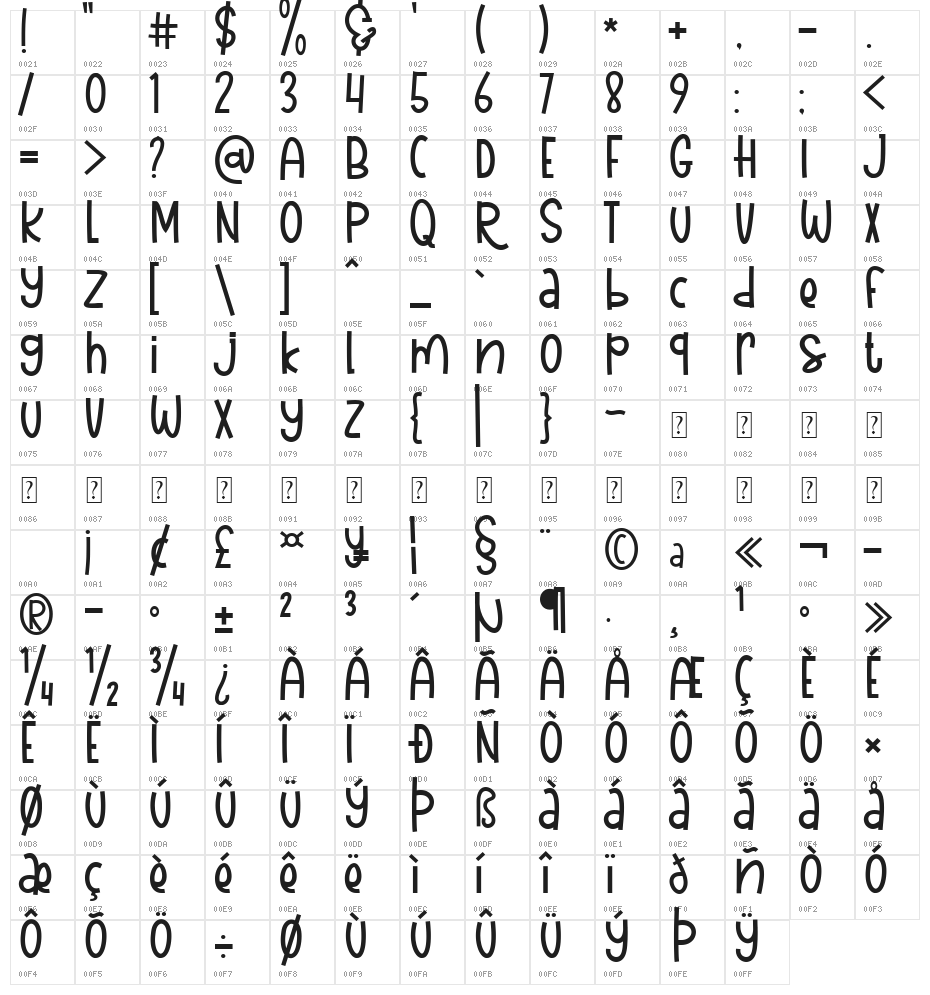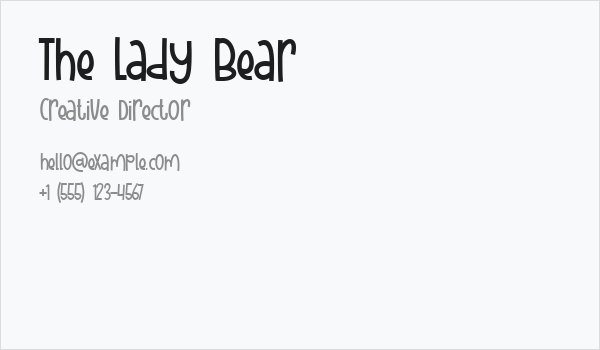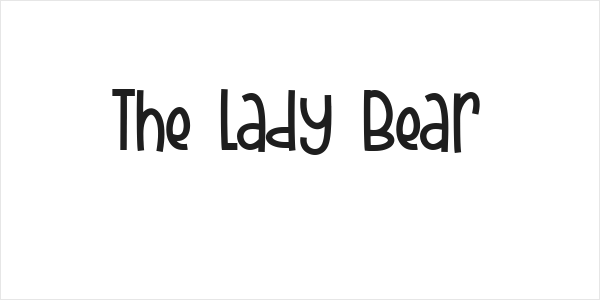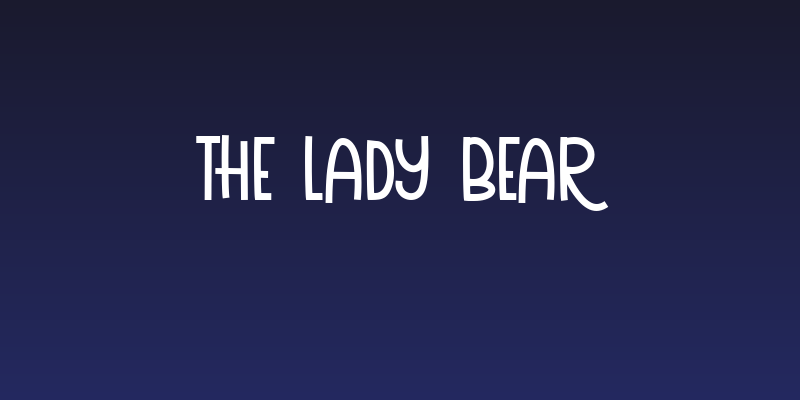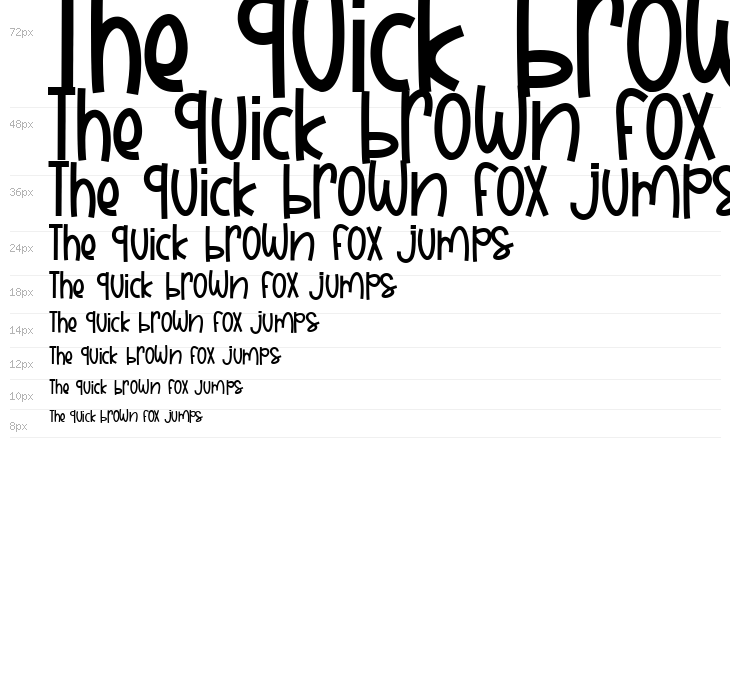
The Lady Bear Font
The Lady Bear Description
This font features a playful and whimsical design with tall, narrow characters that have a hand-drawn feel. The strokes are consistent in width, giving it a uniform appearance, while the slightly irregular shapes add a touch of charm and personality. The uppercase letters are bold and prominent, while the lowercase letters maintain a similar style but with a more relaxed and casual look. Numbers and special characters are crafted to match the overall aesthetic, making it suitable for creative and informal projects. The font's unique style makes it stand out, perfect for adding a fun and lively touch to any design.
| Proposed Projects | Ideal for children's books, greeting cards, playful branding, and creative posters. |